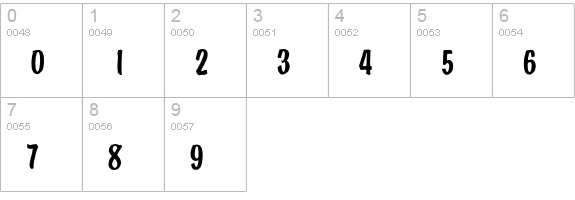
Introducing Brody D font - a versatile and stylish typeface that is sure to make your designs stand out. This modern and sleek font features clean lines and a unique aesthetic that will add a touch of sophistication to any project. Brody D font is perfect for a wide range of design applications, from logos and branding to posters and social media graphics. The best part? Brody D font is available for free download at FontsMarket.com. That's right, you can get your hands on this stunning font without spending a dime. Whether you're a professional designer looking to add a new font to your collection or a hobbyist in need of a fresh look for your projects, Brody D font is the perfect choice. Don't miss out on this amazing opportunity to elevate your designs with this fantastic font. Download Brody D font today and start creating stunning visuals with ease!